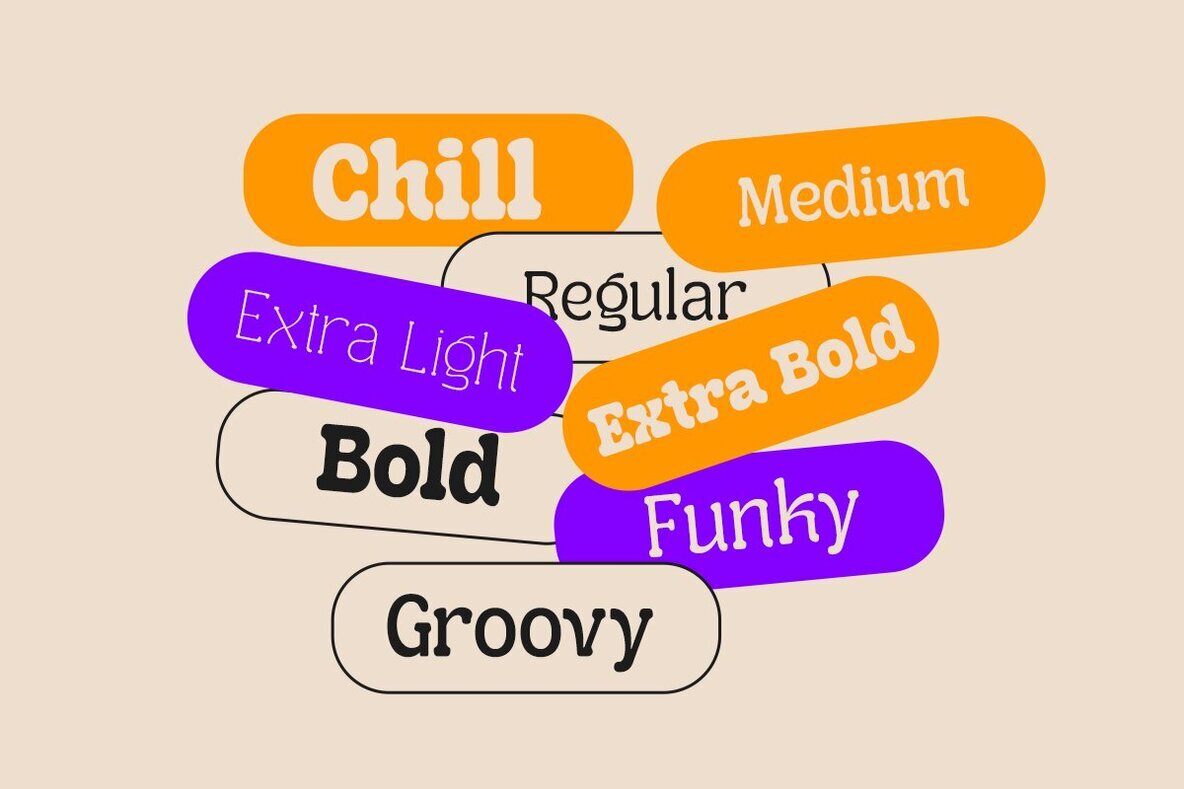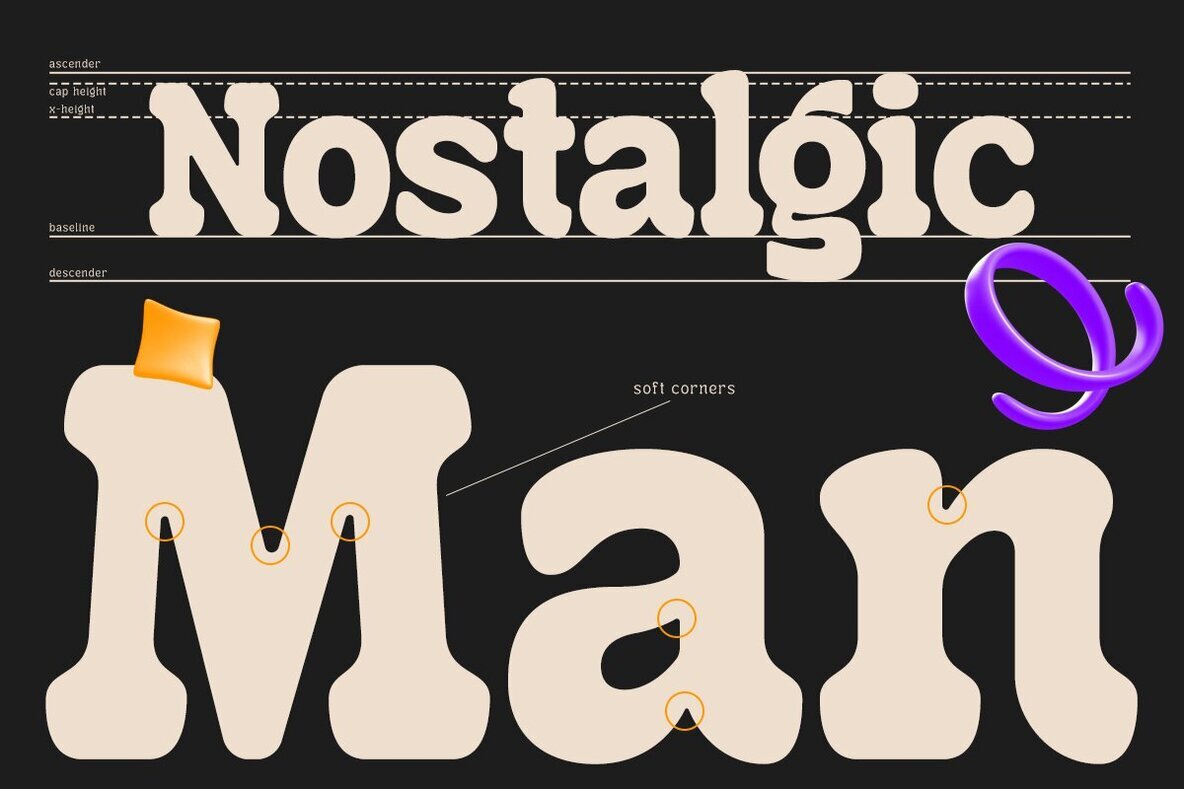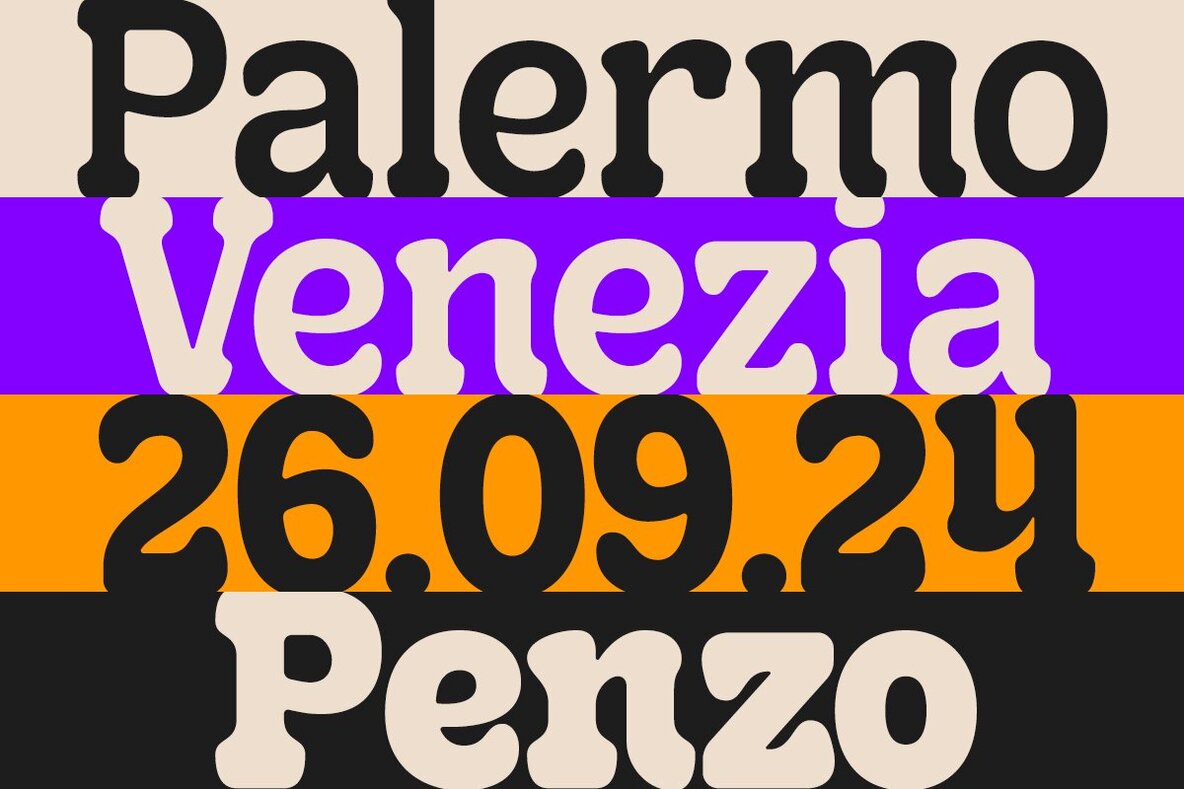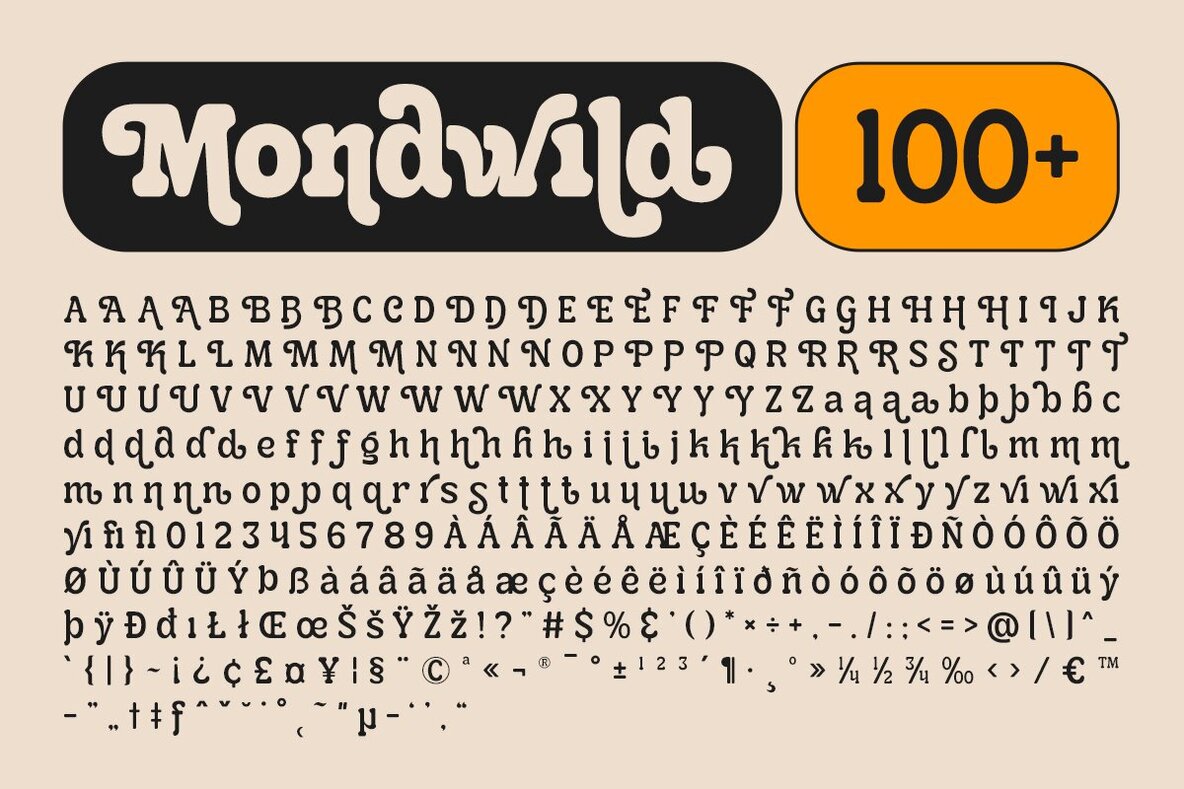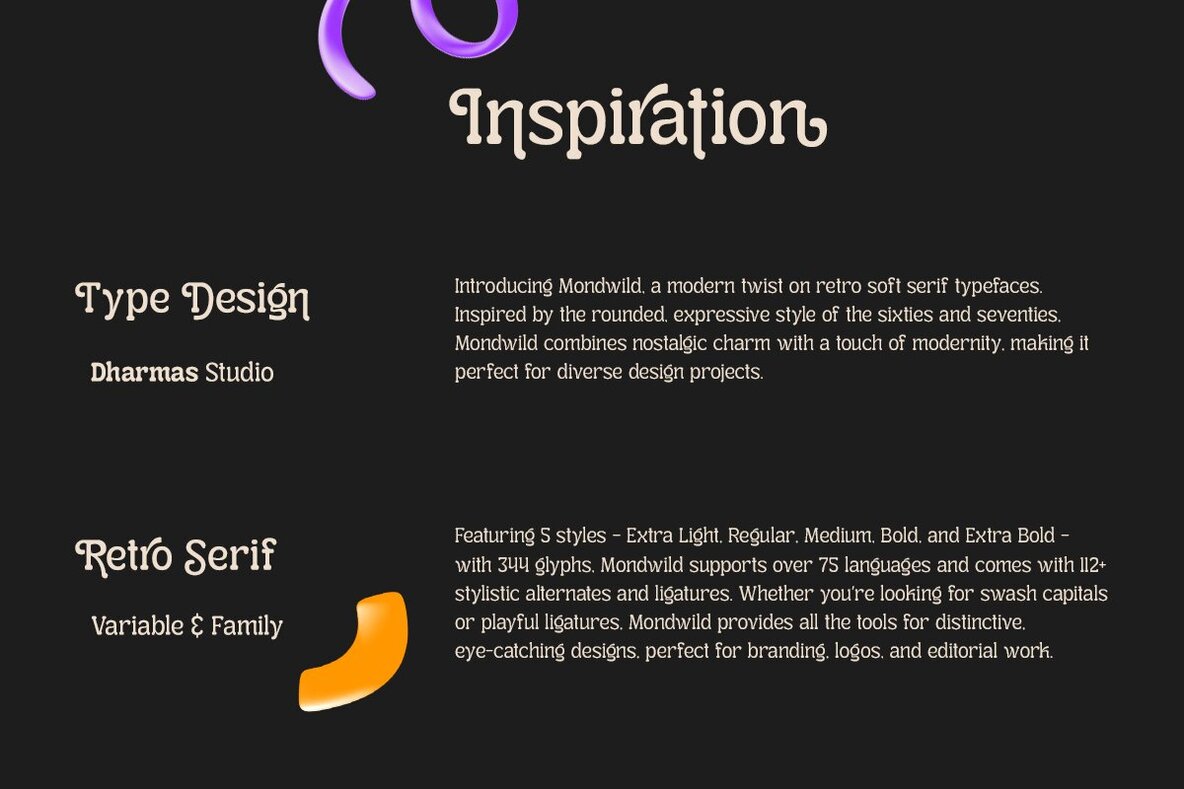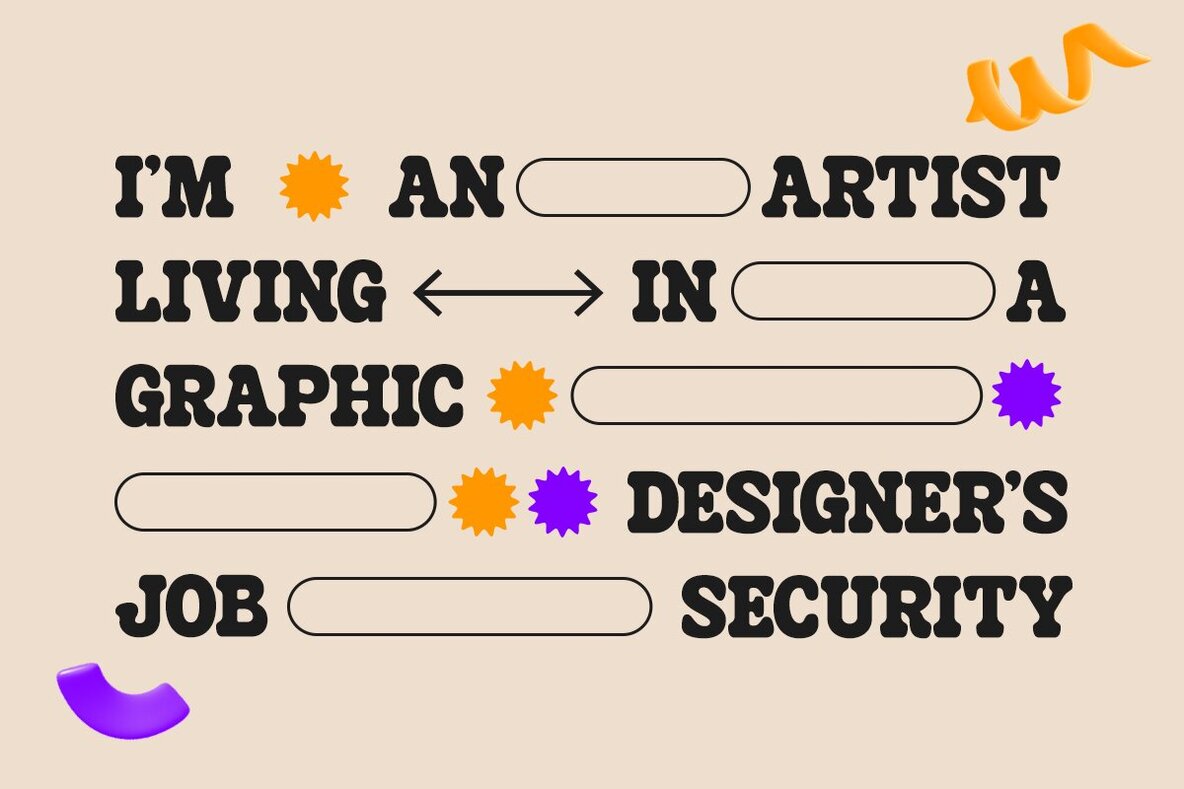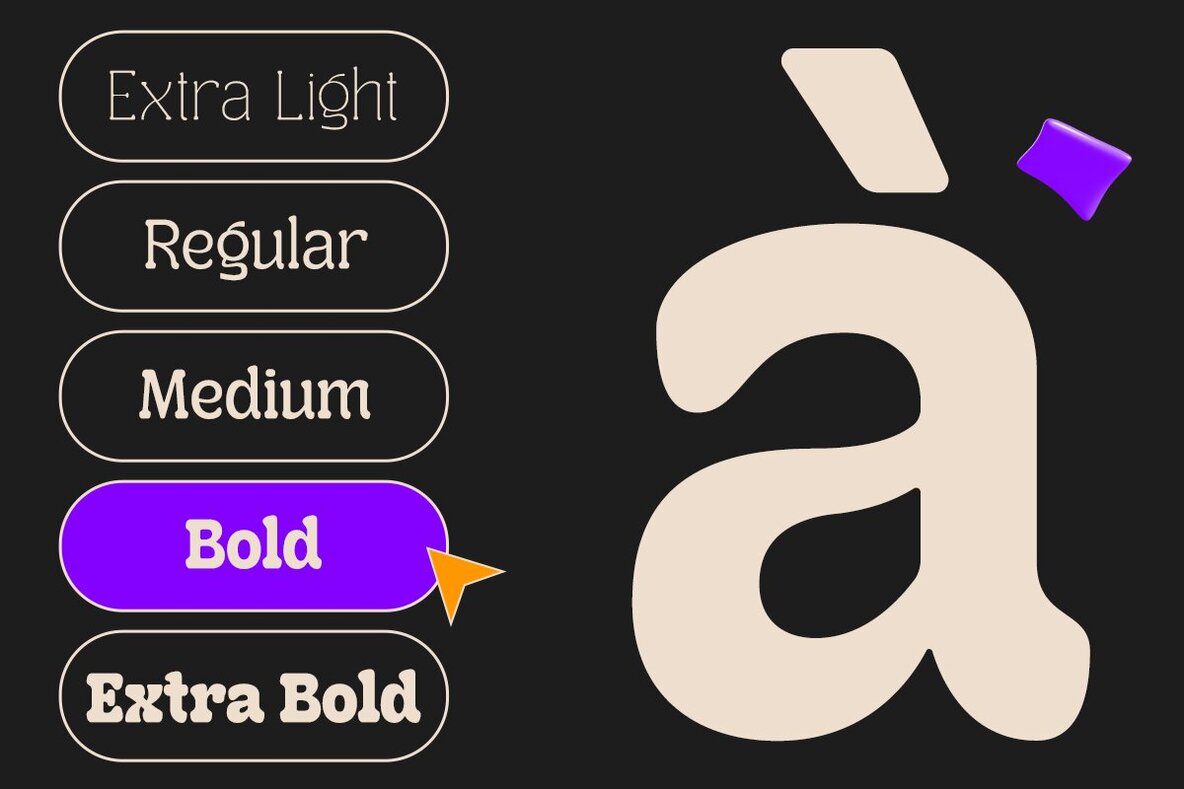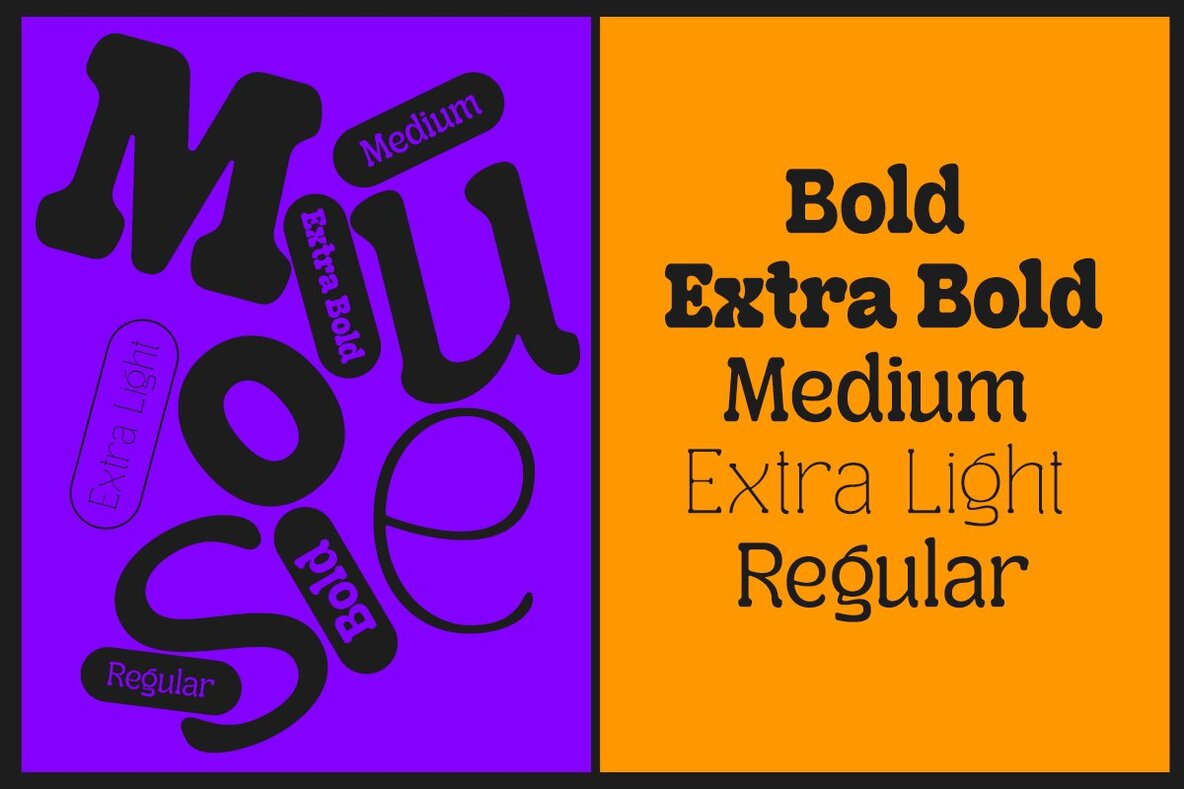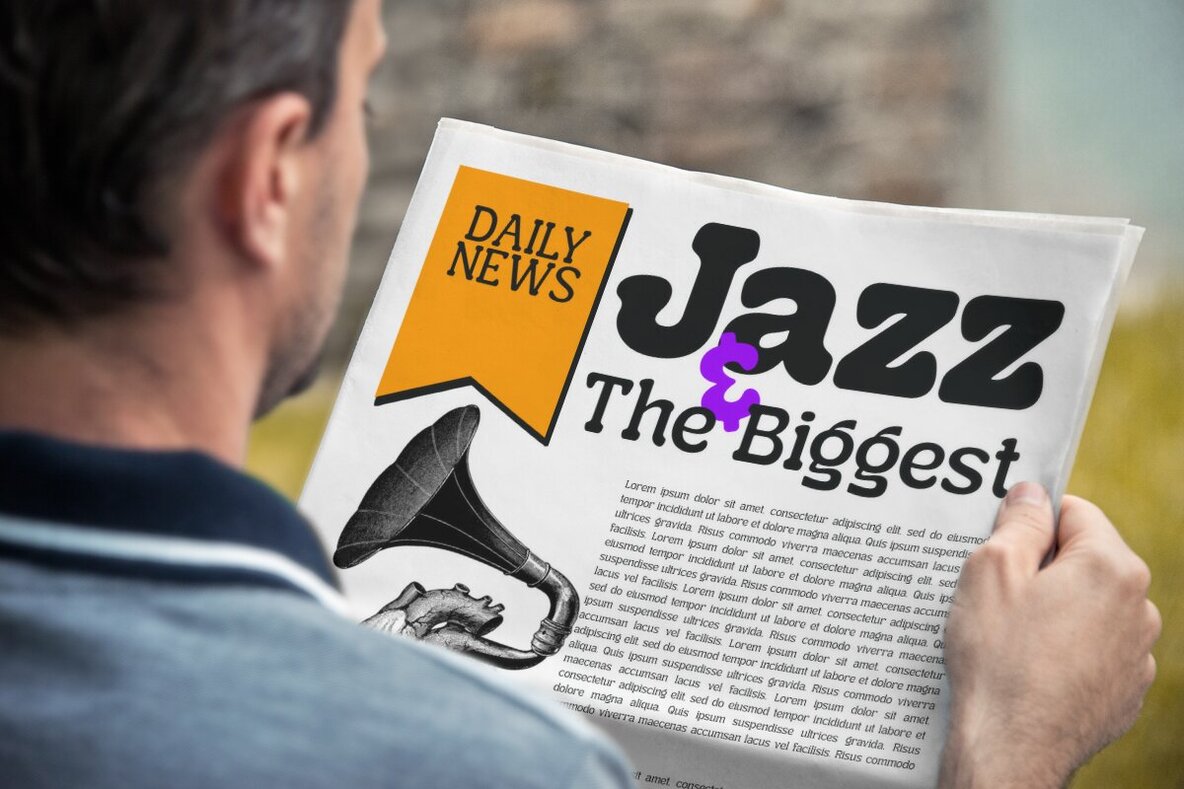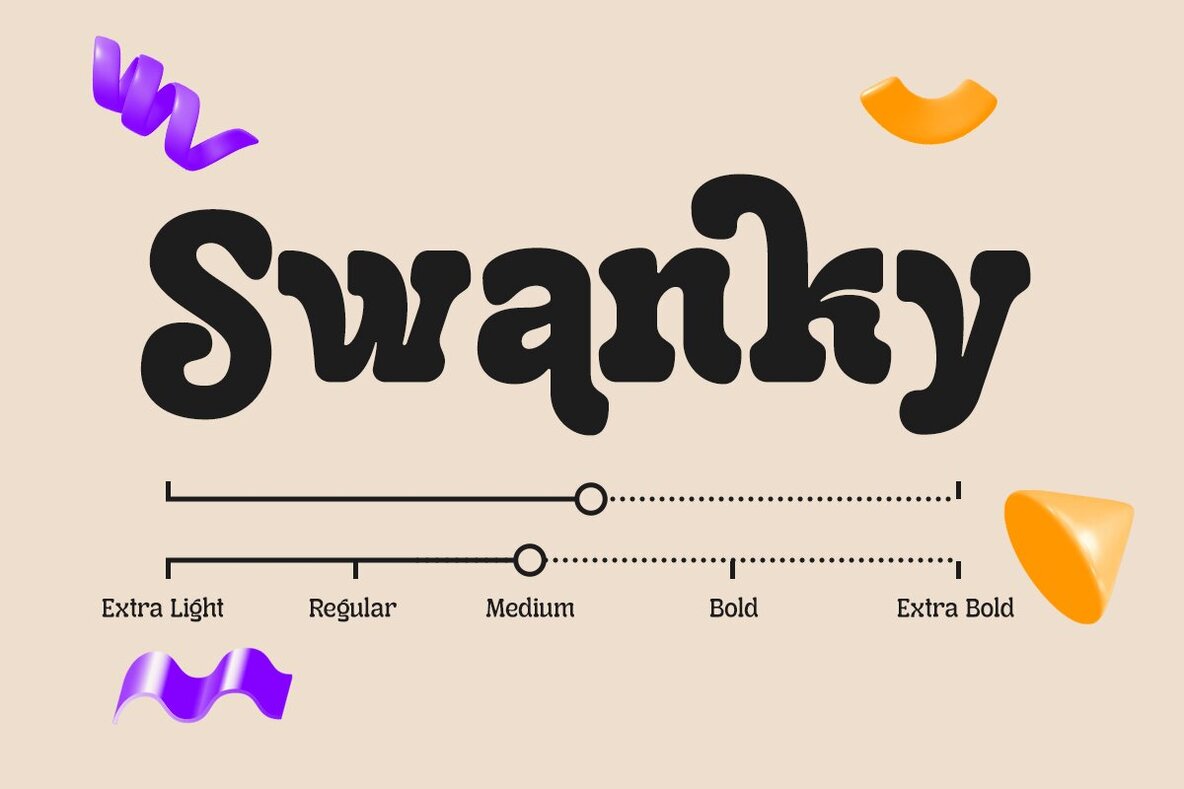
Mondwild Font
Dh Mondwild Extra Light
Dh Mondwild Light
Dh Mondwild Regular
Dh Mondwild Medium
Dh Mondwild Semi Bold
Dh Mondwild Bold
Dh Mondwild Extra Bold
Dh Mondwild Variable
Introducing Mondwild - 7 Variable Modern Retro Mondwild is a unique typeface that blends retro charm with modern sensibilities, creating a versatile font that captures both nostalgia and contemporary flair. Inspired by the expressive styles of past eras yet designed with a sleek, modern touch, Mondwild brings warmth and energy to your projects. Its rounded yet clean letterforms offer a playful rhythm that’s perfect for a variety of design needs. Mondwild comes with a family of 7 styles: Extra Light, Light, Regular, Medium, Semi Bold, Bold, and Extra Bold, providing a flexible range for both headline and body text usage. This typeface excels in capturing attention while remaining easy to read, making it ideal for branding, editorial work, and web design. Equipped with an extended Latin character set, Mondwild also features 100+ unique stylistic alternates, and more. These elements make Mondwild a powerful typographic tool, offering endless customization possibilities for modern projects that crave a touch of retro elegance. What you get: Language Support: Danish, English, Estonian, Filipino, Finnish, French, Friulian, Galician, German, Gusii, Indonesian, Irish, Italian, Luxembourgish, Norwegian Bokmål, Norwegian Nynorsk, Nyankole, Oromo, Portuguese, Romansh, Rombo, Spanish, Swedish, Swiss-German, Uzbek (Latin)